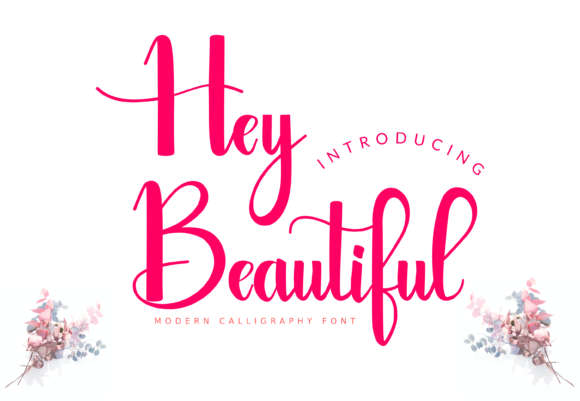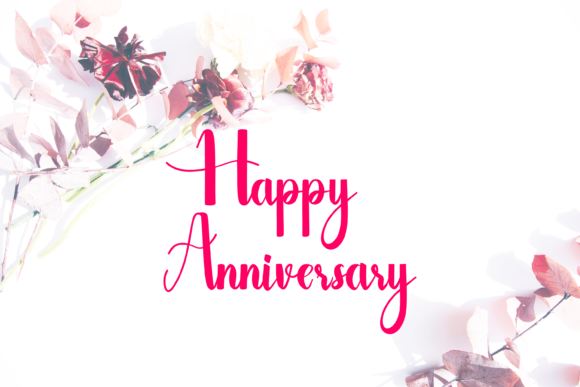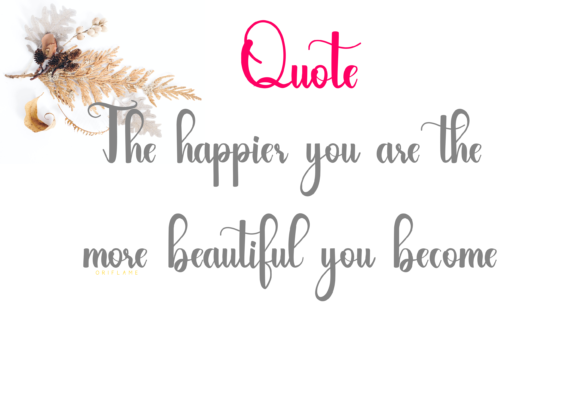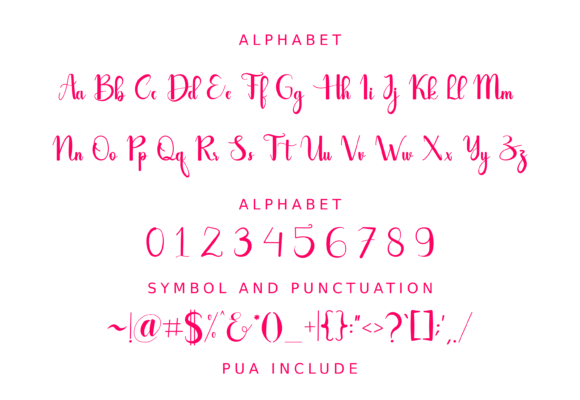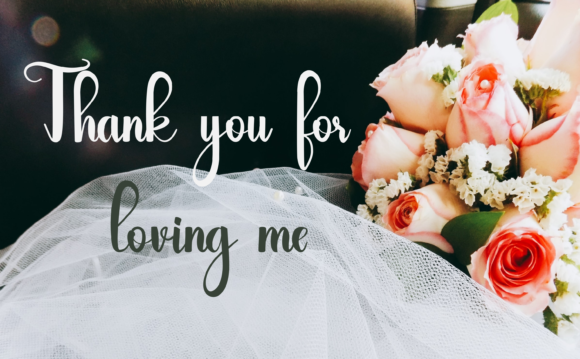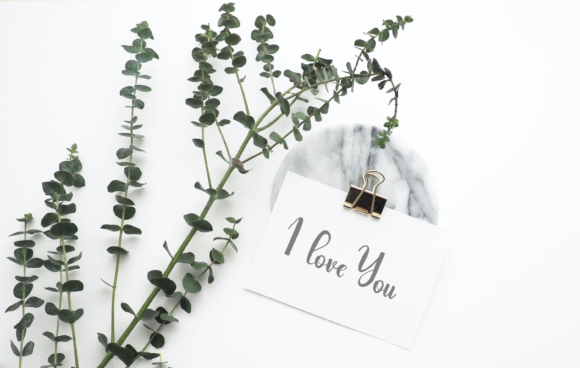
Hey Beautiful Font
About Hey Beautiful Font
Hey Beautiful is a lovely script font featuring charming, playful characters that seem to dance along the baseline. Add this font to your most creative ideas, and notice how it makes them stand out!